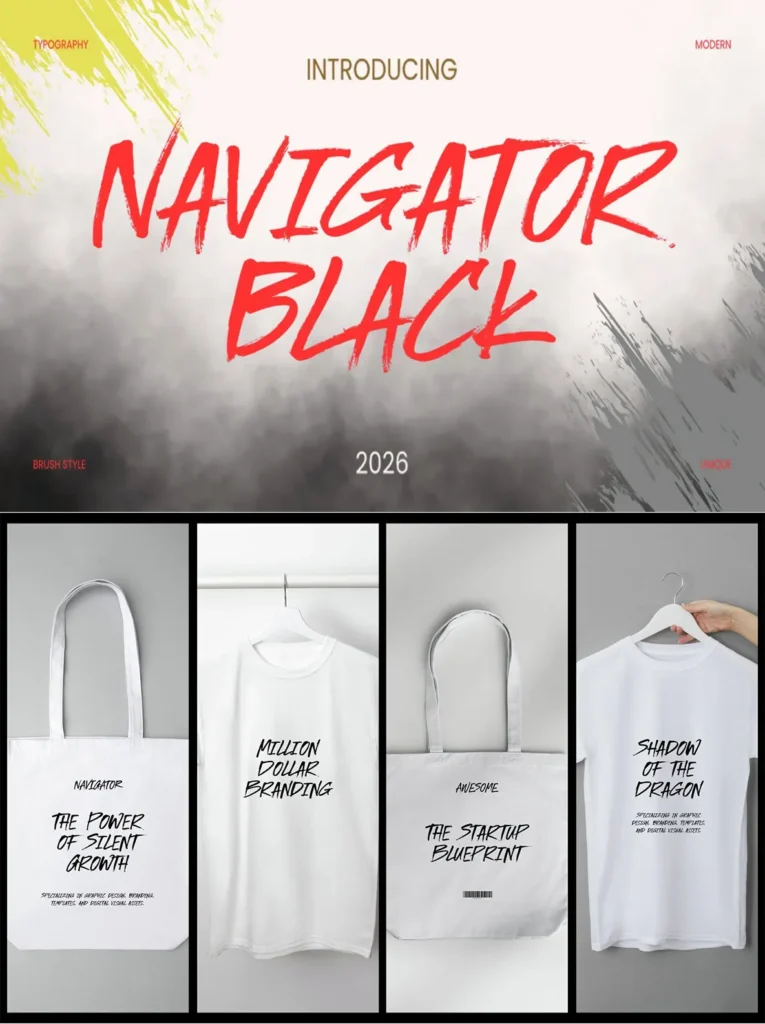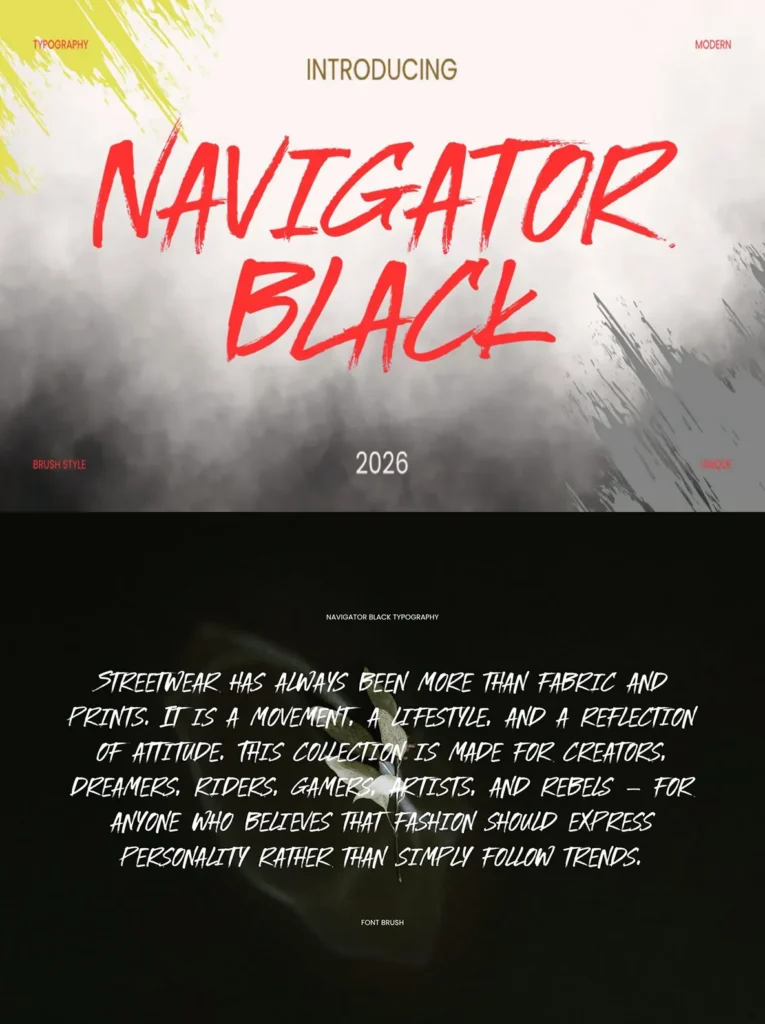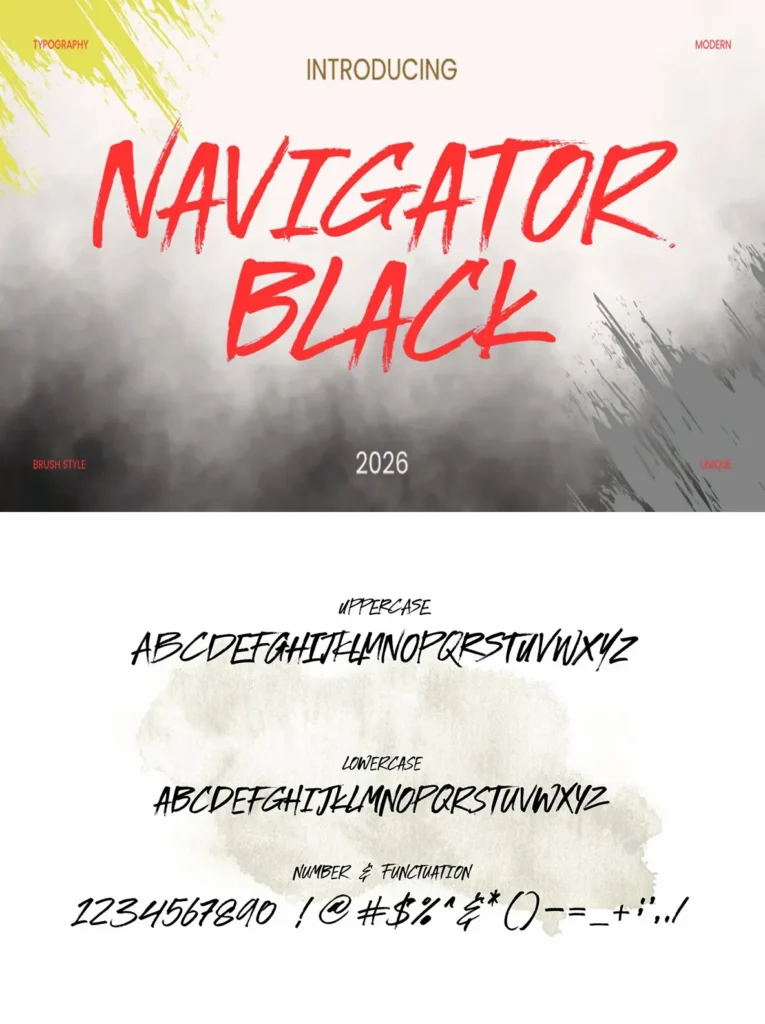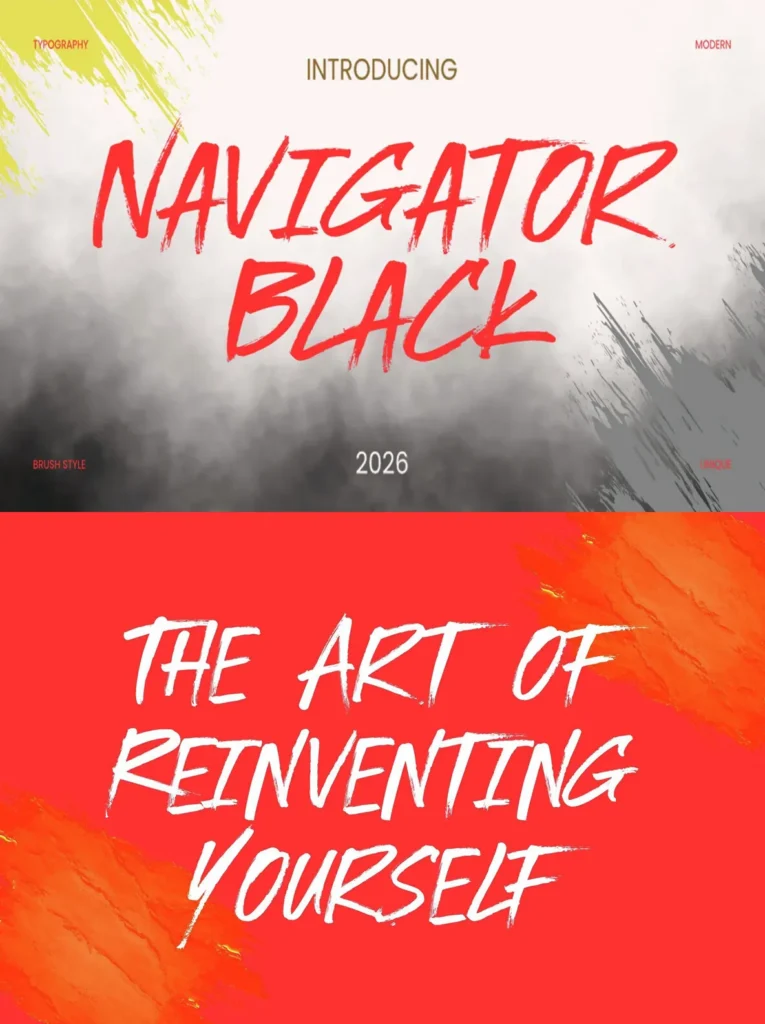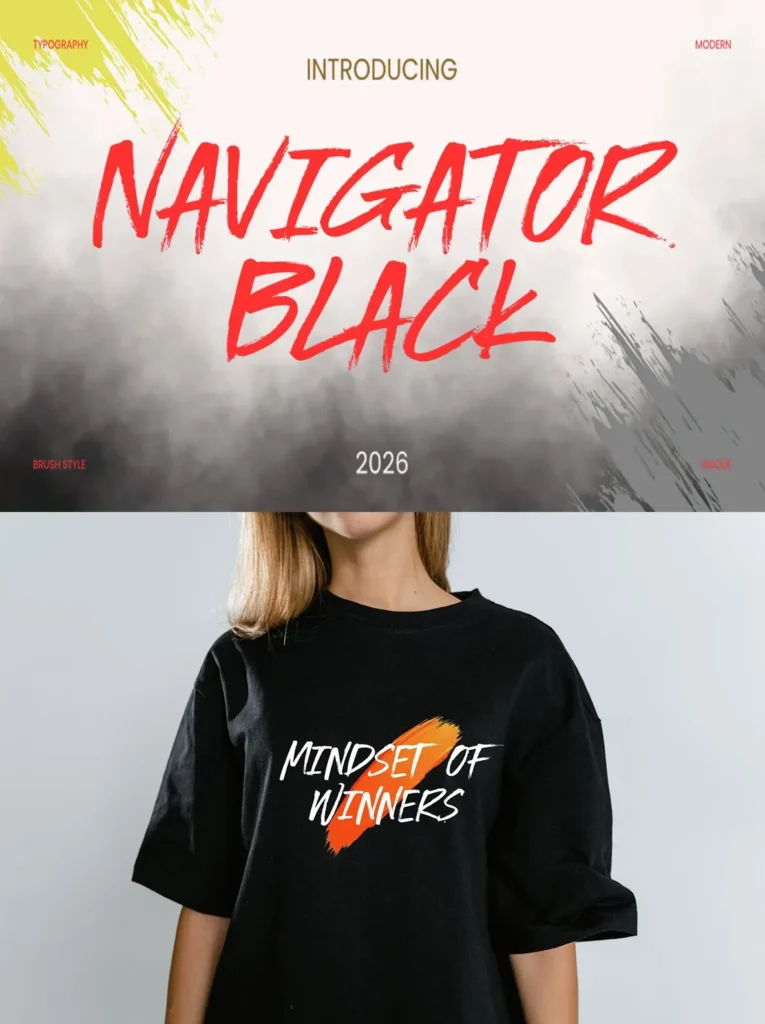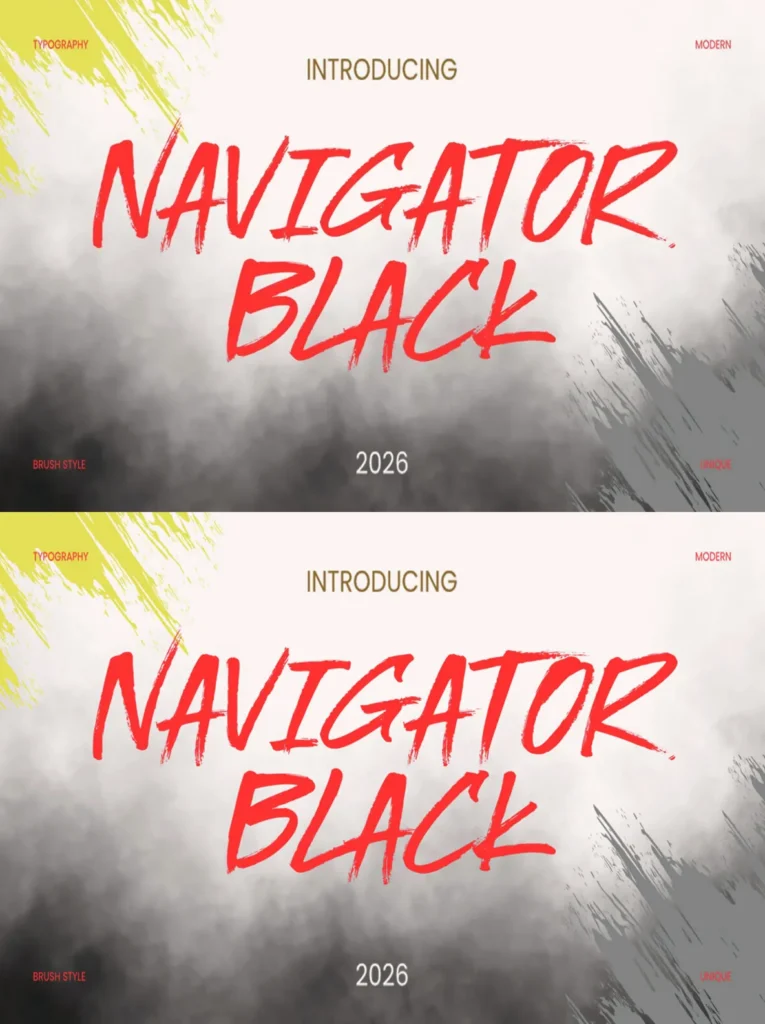
Nafigator Black — Brush Texture with Bite
Nafigator Black is a modern casual handwritten font with a detailed, unique brushstroke texture. Its expressive black brush style gives words a confident, hand-rendered presence while staying practical for many design settings.